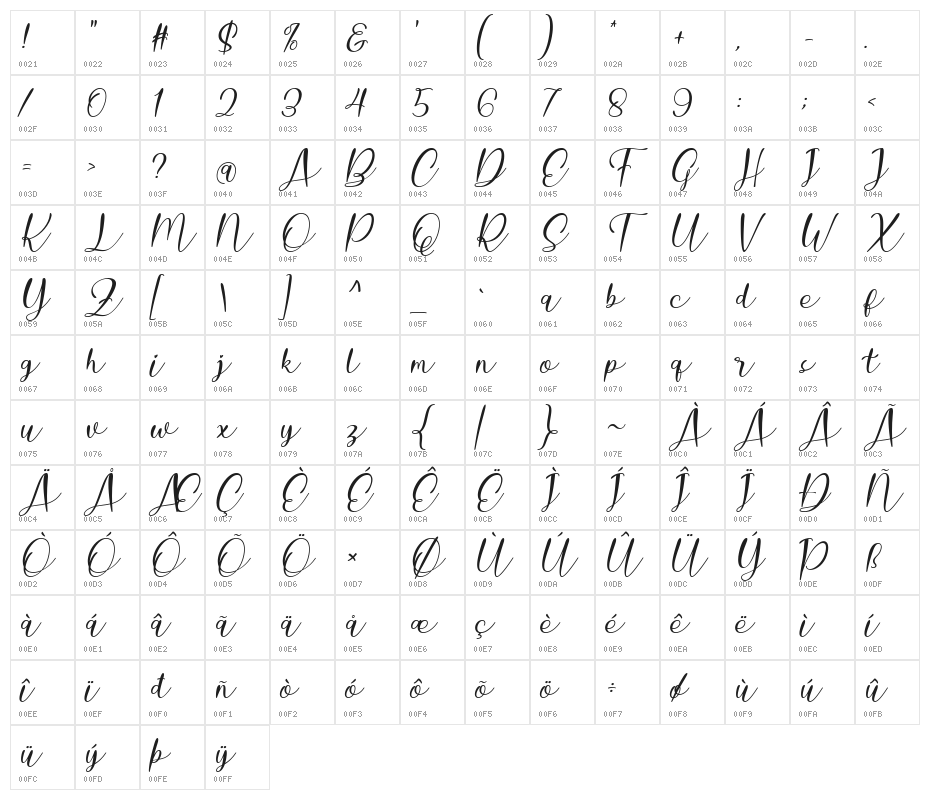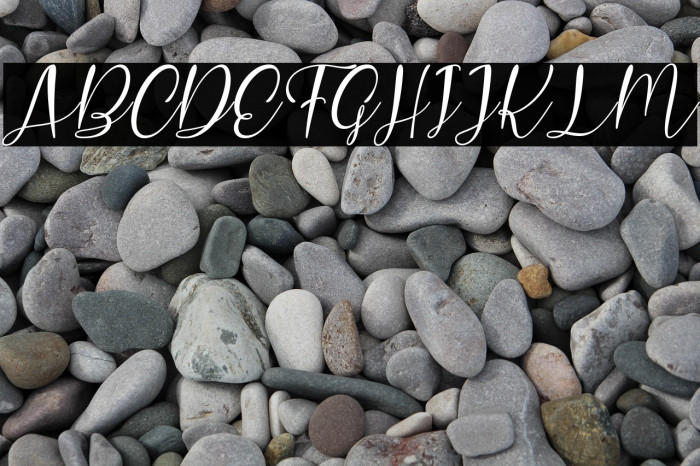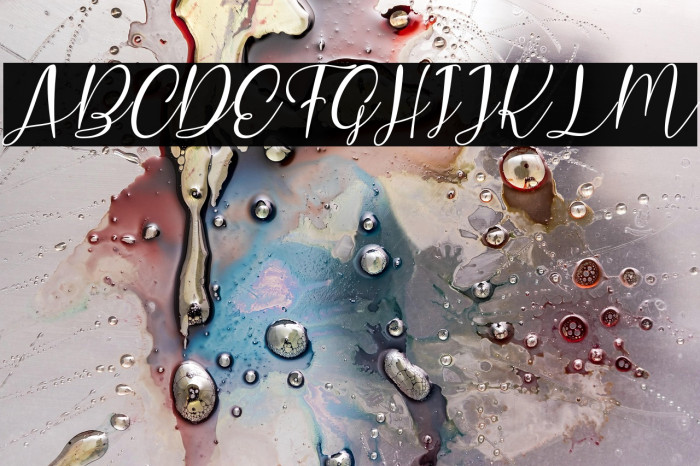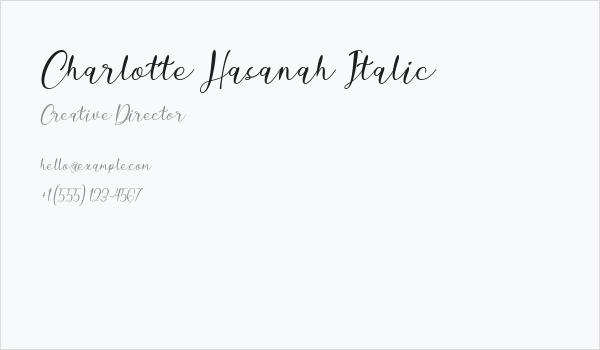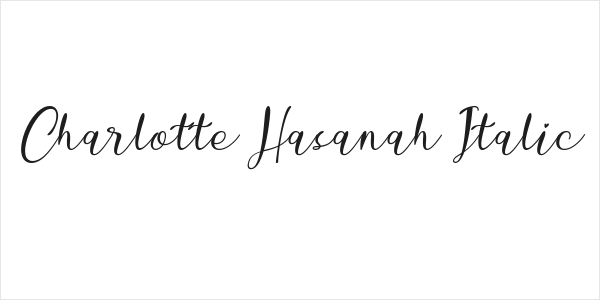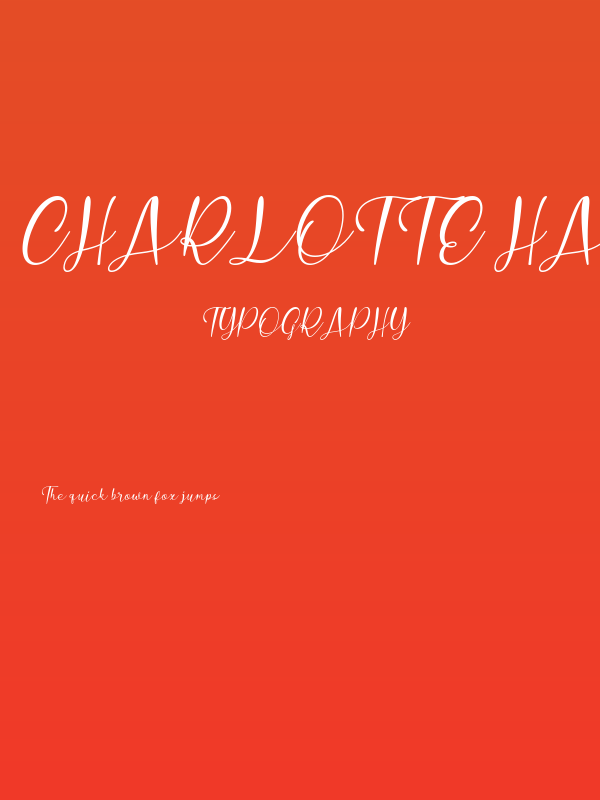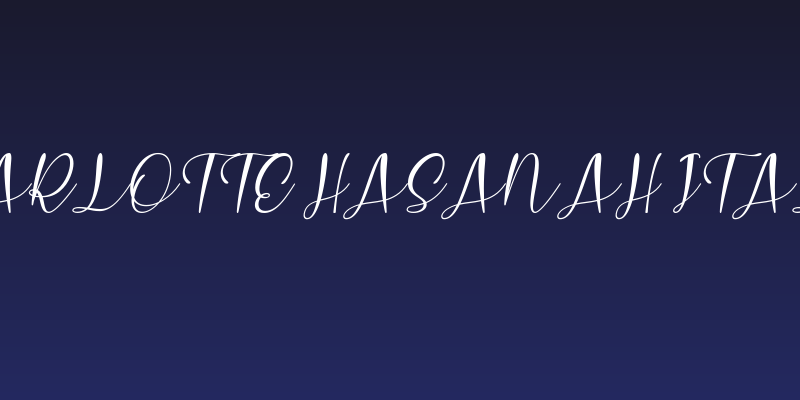
Charlotte Hasanah Italic Font
Charlotte Hasanah Italic Description
This font features an elegant, flowing script style that exudes sophistication and charm. The characters are connected in a cursive manner, with smooth, fluid strokes that create a sense of movement and grace. The uppercase letters are slightly more ornate, with flourishes that add a touch of flair, while the lowercase letters maintain a consistent, harmonious flow. The numerals are designed to complement the overall script style, with a similar fluidity and elegance. Special characters are integrated seamlessly, maintaining the font's cohesive aesthetic. This font is ideal for projects that require a personal, handwritten touch, such as invitations, greeting cards, and branding materials.
| Overall Style | Elegant, Sophisticated |
| Use Case | Headlines, Invitations, Branding |
| Proposed Projects | Ideal for wedding invitations, greeting cards, personal branding, and elegant logos. |